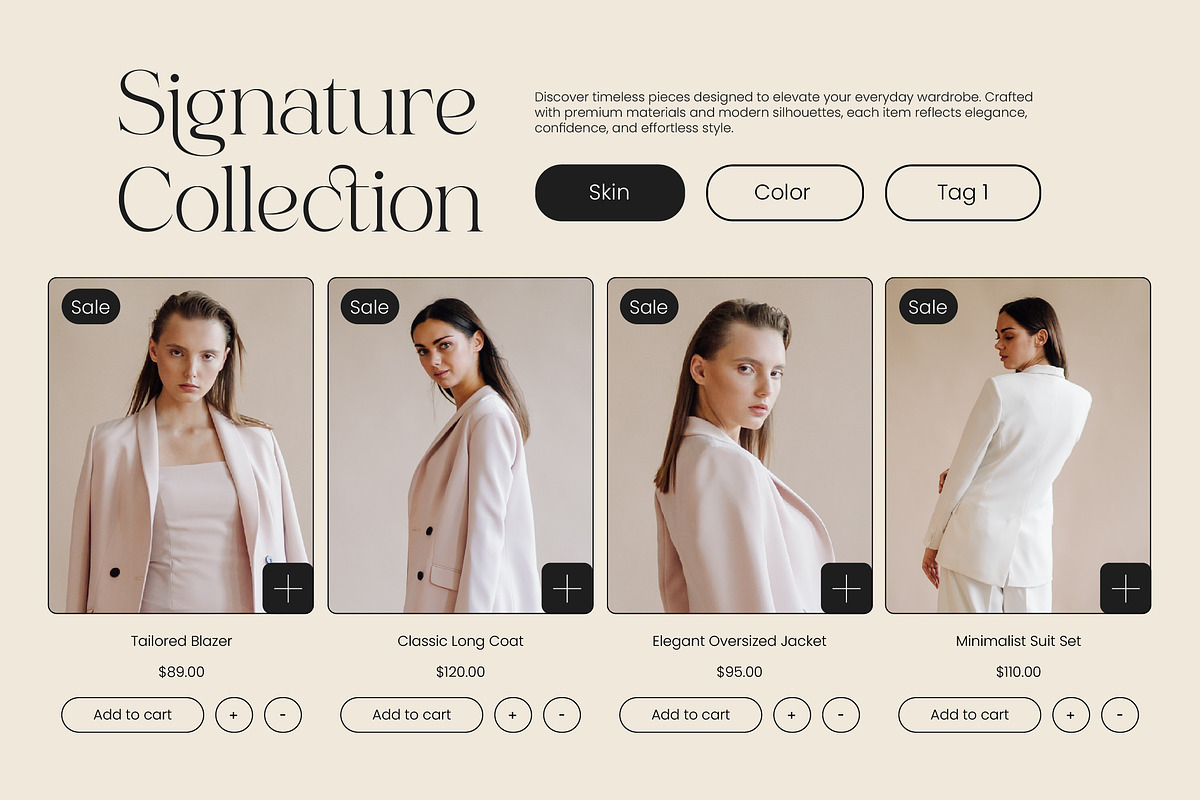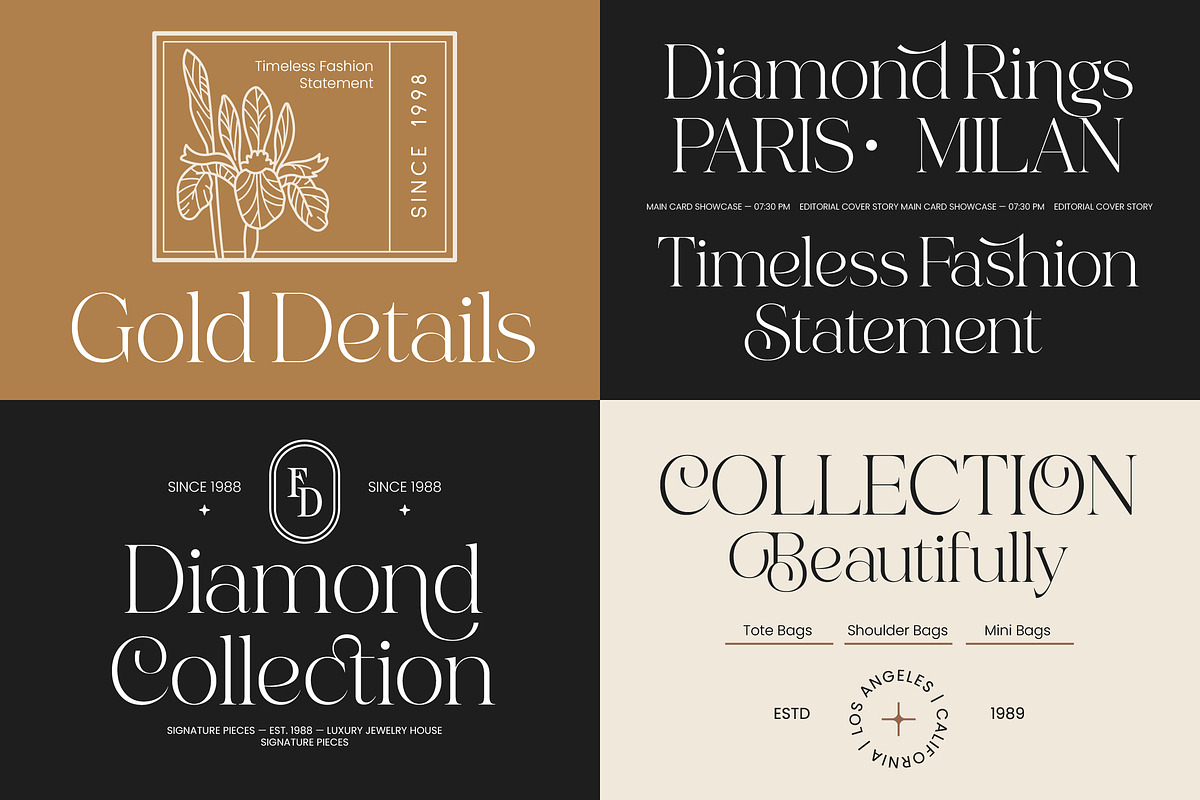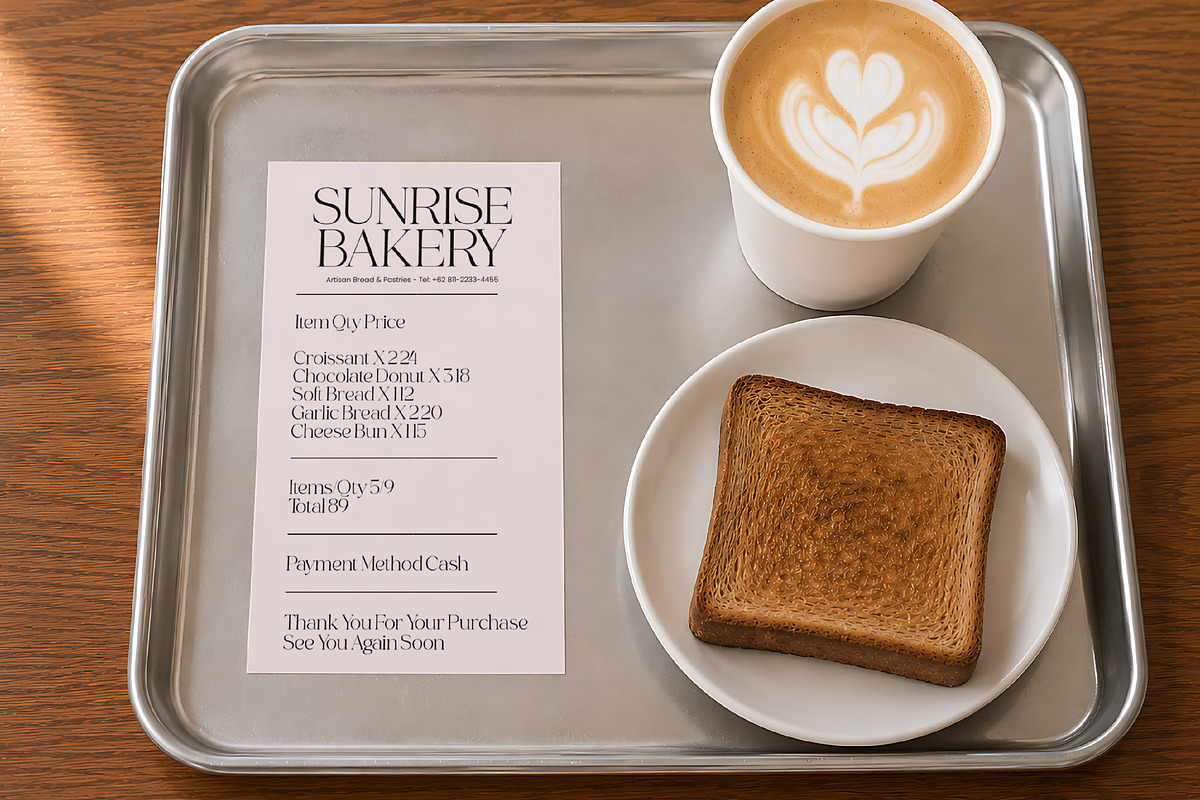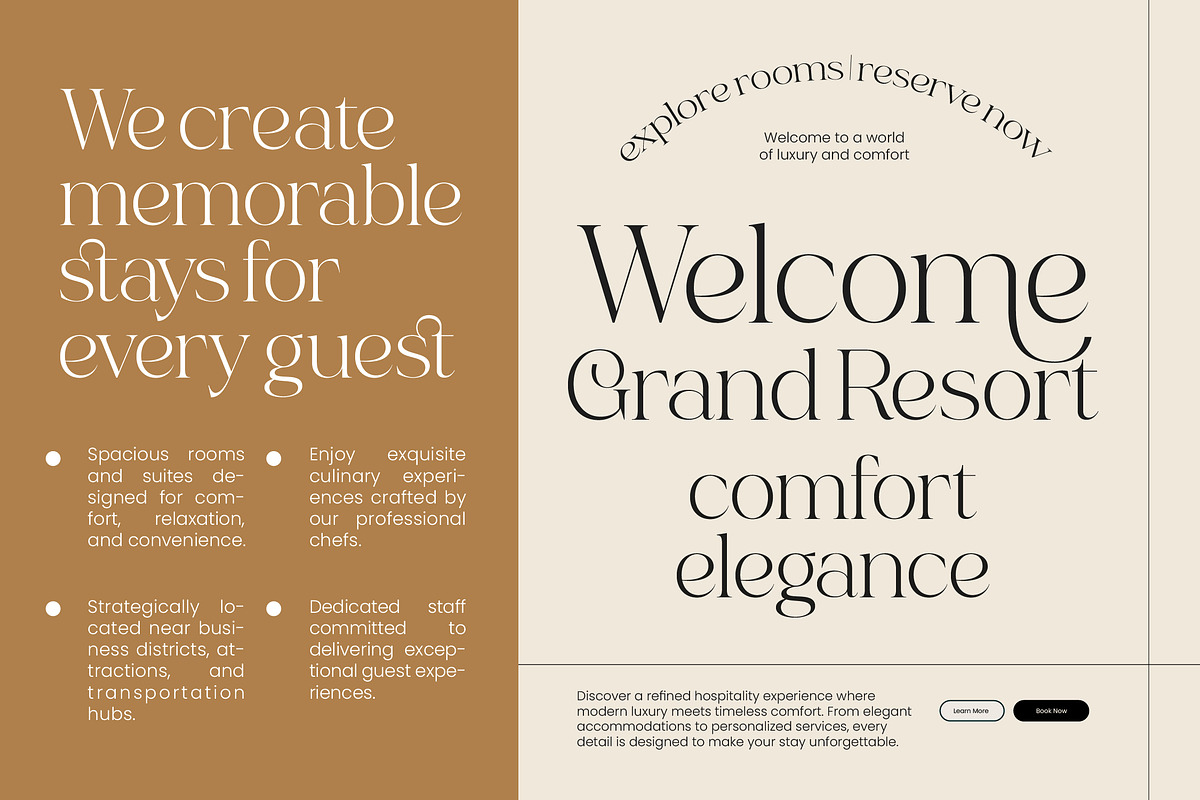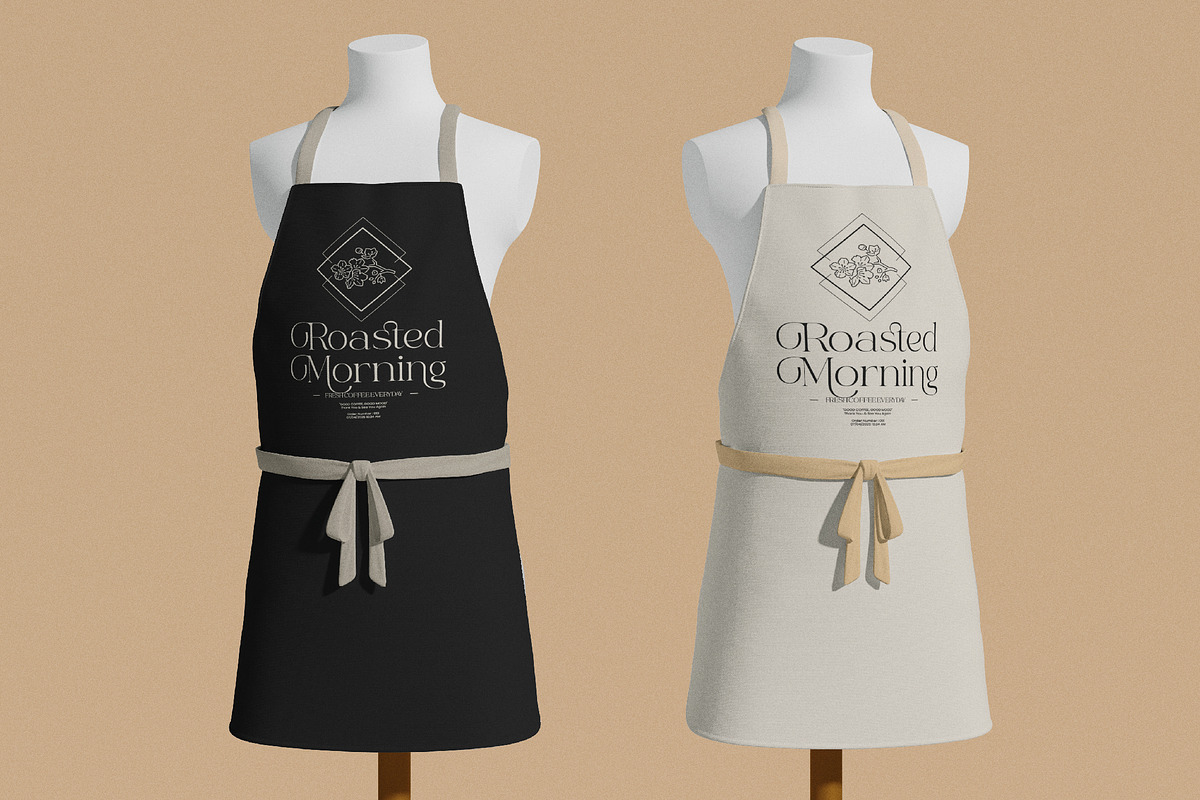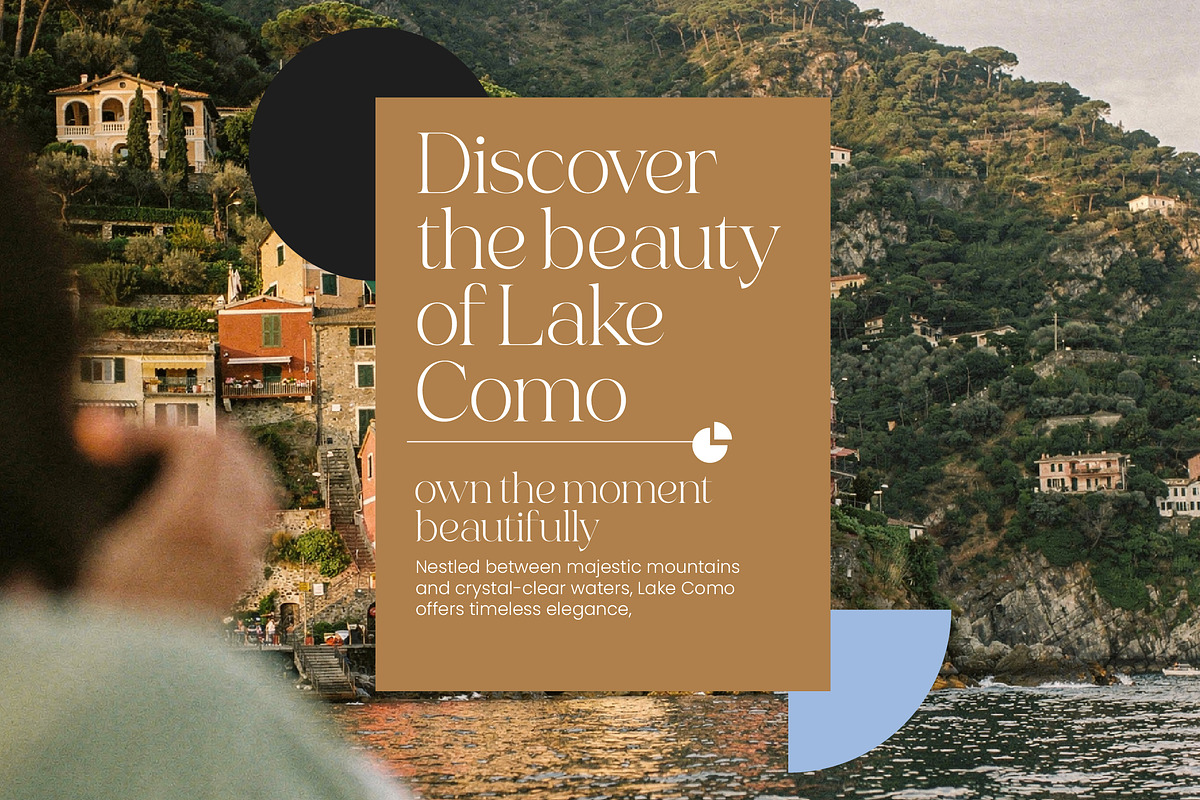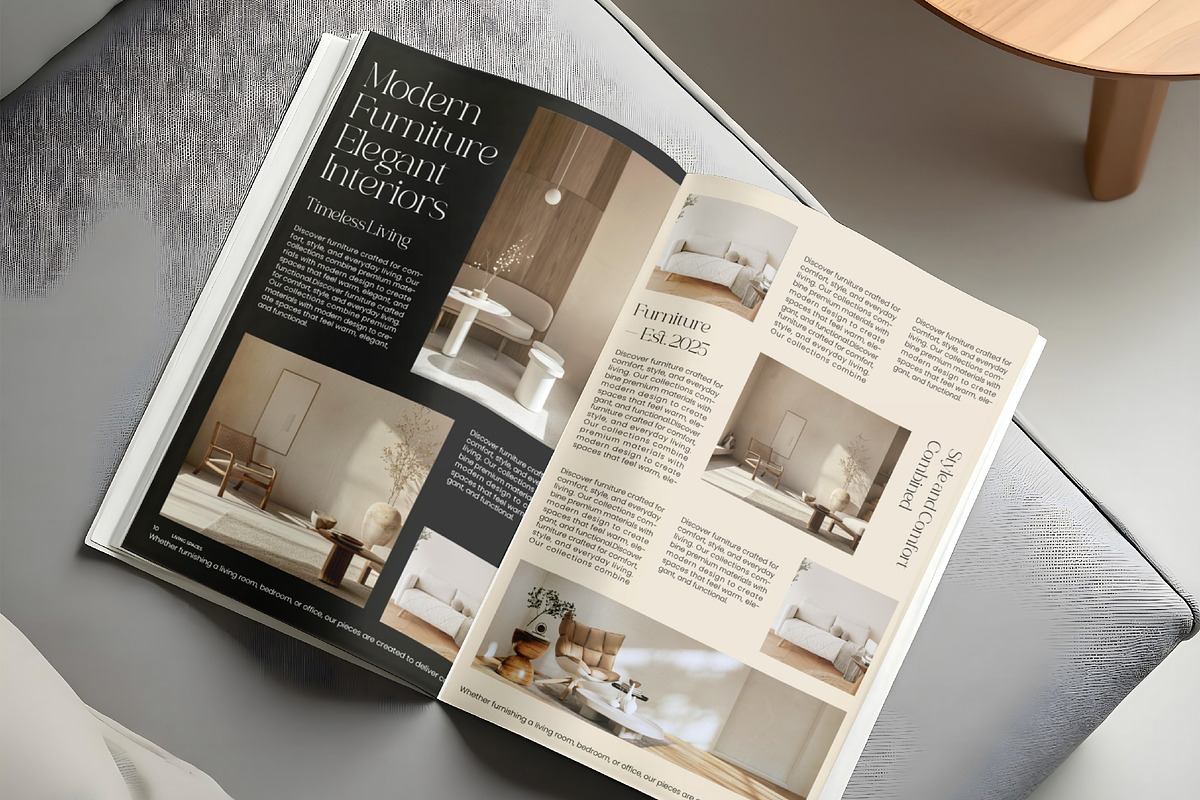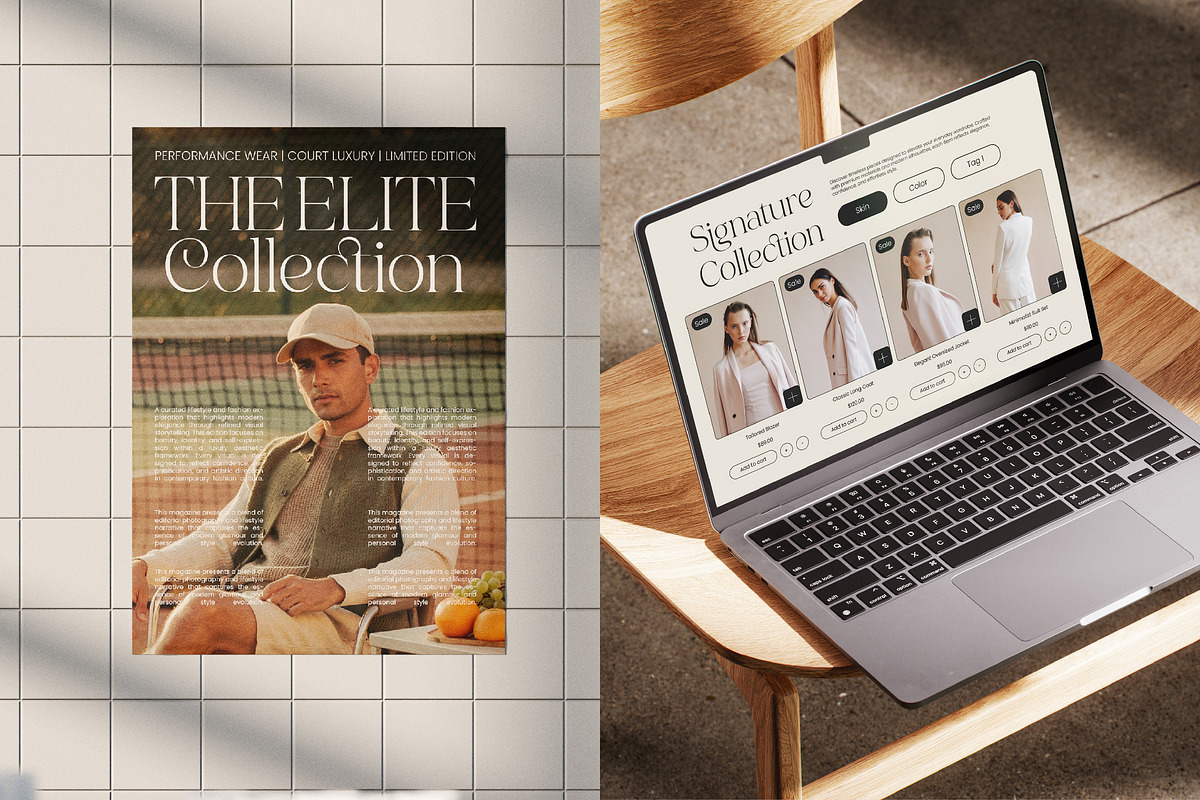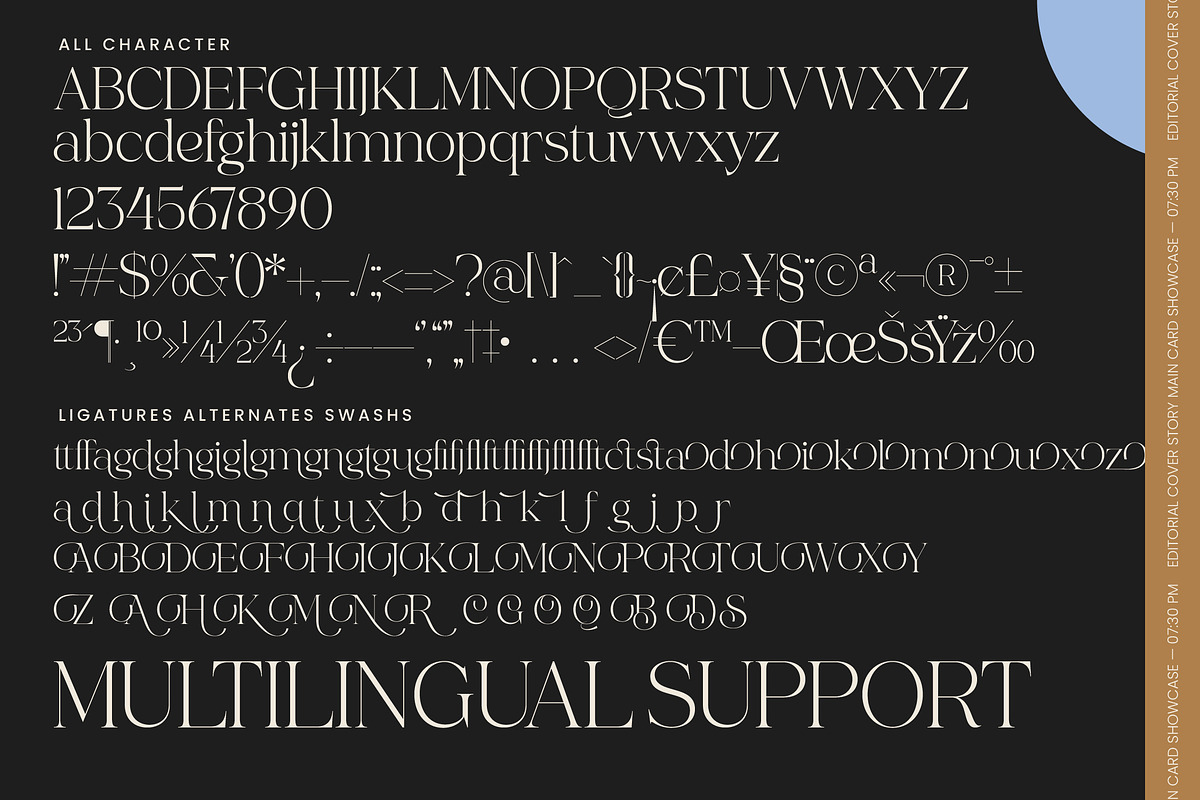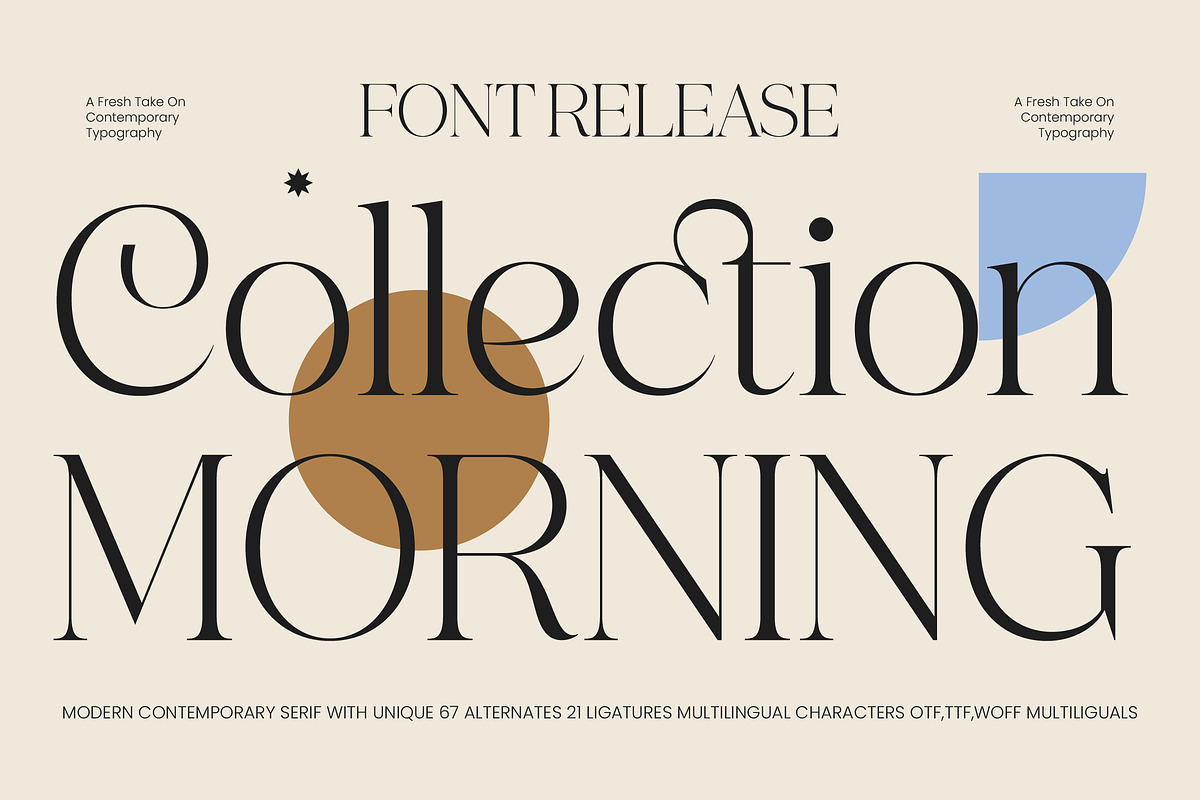
Collection Morning Modern Serif
Collection Morning – Modern Contemporary Serif , Elevate your creative vision with the refined elegance of Collection Morning – Modern Contemporary Serif. This typeface is a masterpiece of high-contrast design, blending sharp serifs with graceful, sweeping curves to command attention in any luxury branding environment. Its sophisticated silhouette is meticulously crafted to offer a premium aesthetic that feels both timeless and cutting-edge, making it the definitive choice for high-impact editorial layouts.
Redefine sophistication using a toolkit designed for professional excellence. With its impressive library of unique alternates and artistic ligatures, Collection Morning – Modern Contemporary Serif provides designers with the creative freedom to craft bespoke typography. This versatile font bridges the gap between classic serif traditions and minimalist modernism, ensuring that every headline or logo project radiates a sense of exclusive quality and artistic flair.
Reach a diverse global audience without compromising on style or legibility. With its extensive multilingual support, Collection Morning – Modern Contemporary Serif adapts seamlessly across global markets, making it incredibly versatile for international projects. Whether you are launching a campaign in Europe or the Americas, Collection Morning – Modern Contemporary Serif maintains its visual integrity and brand consistency, empowering your message to resonate across cultural boundaries.
Unlock the full potential of your designs across a wide array of high-end applications. This typeface is the ideal choice for luxury packaging, fashion magazines, boutique identity systems, and sophisticated web headers. Collection Morning – Modern Contemporary Serif is perfect for any project requiring a premium visual impact and a distinctive personality that appeals to a discerning audience seeking nothing less than perfection in every detail.